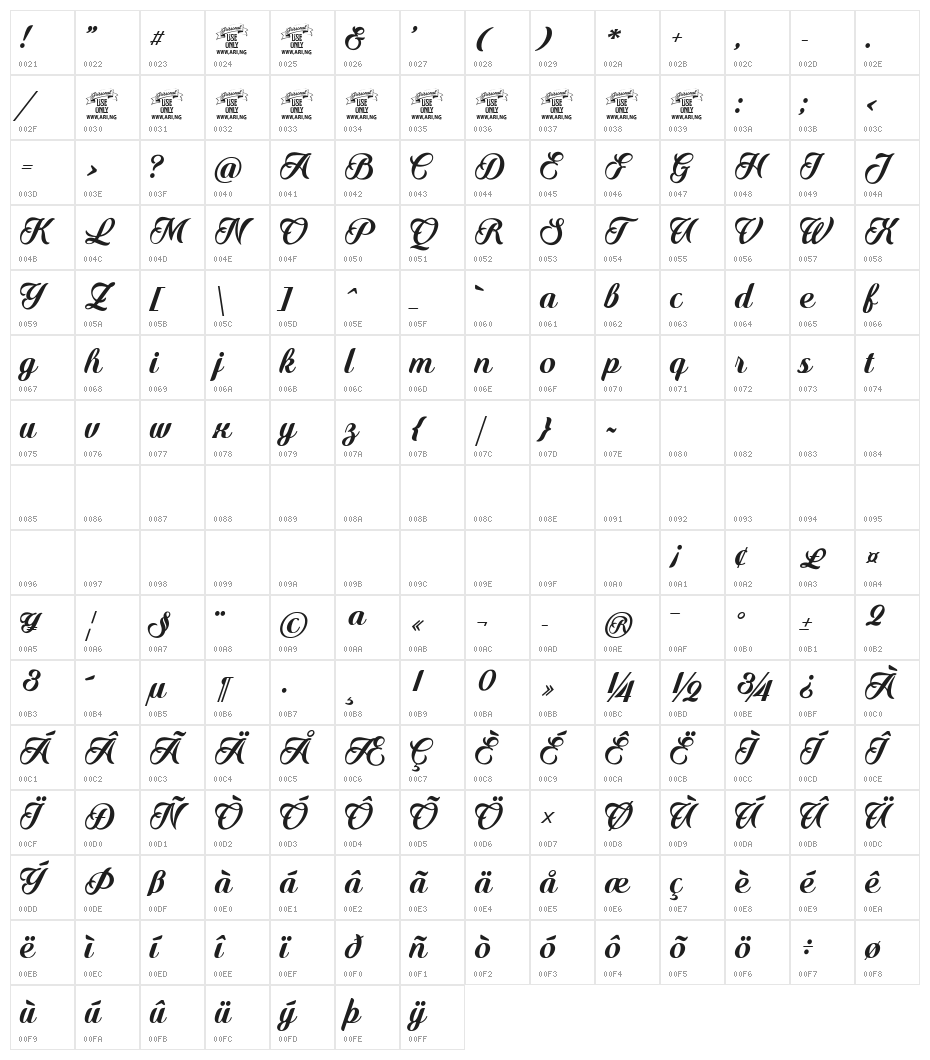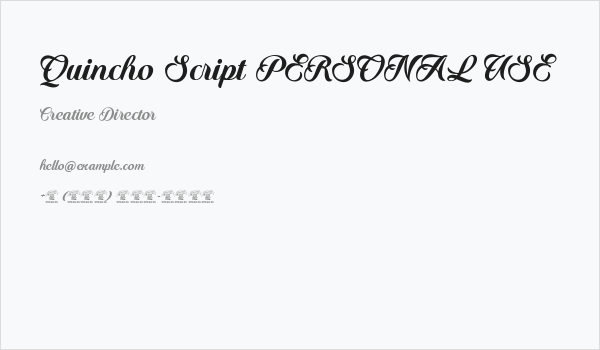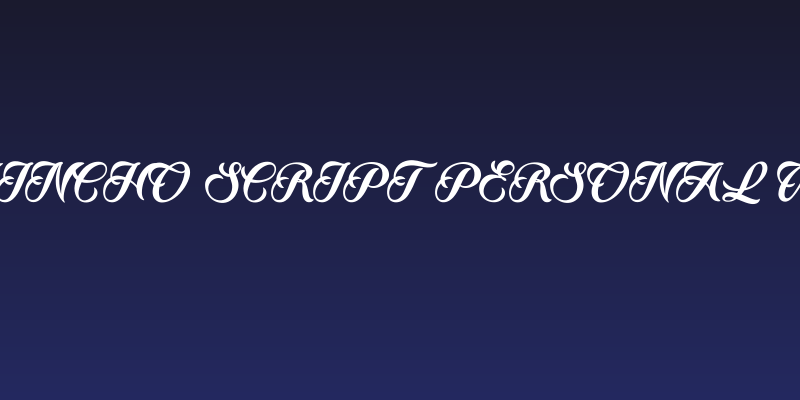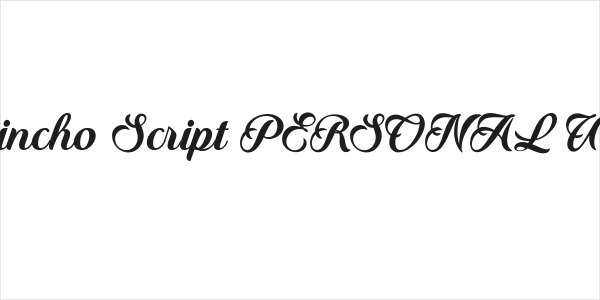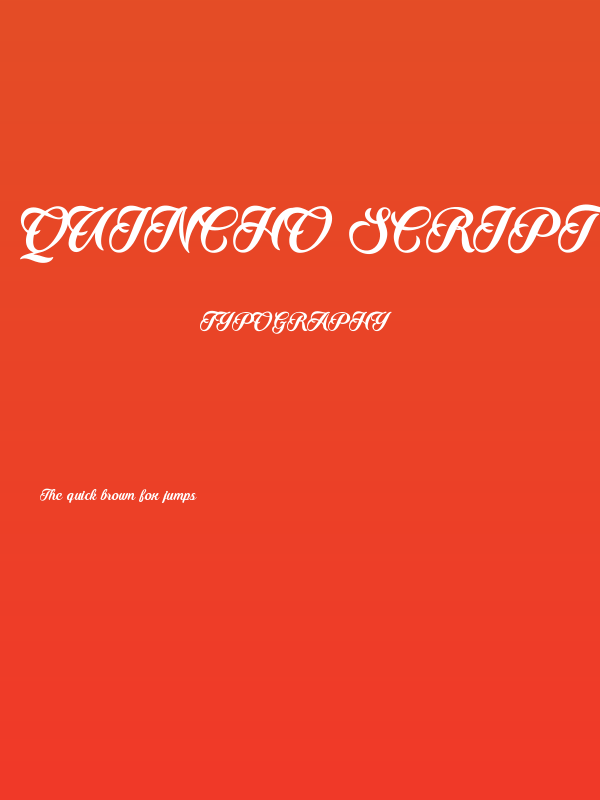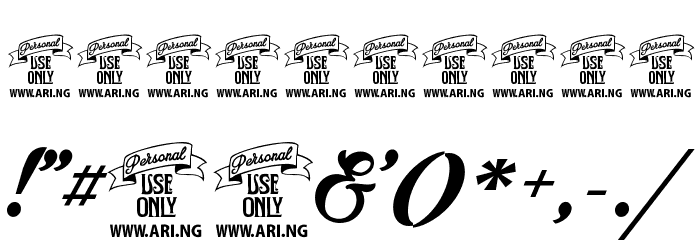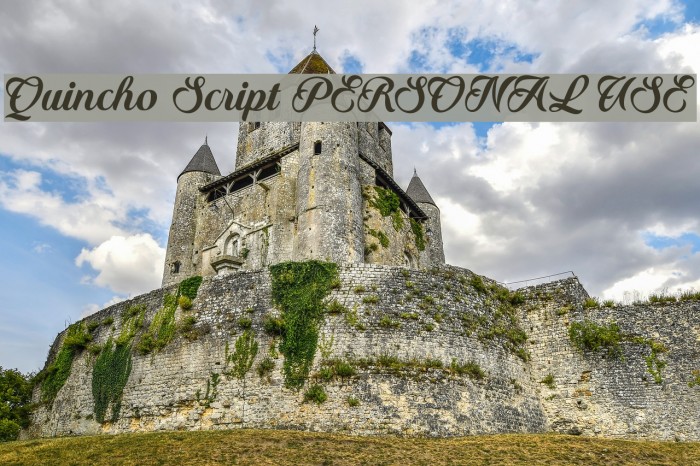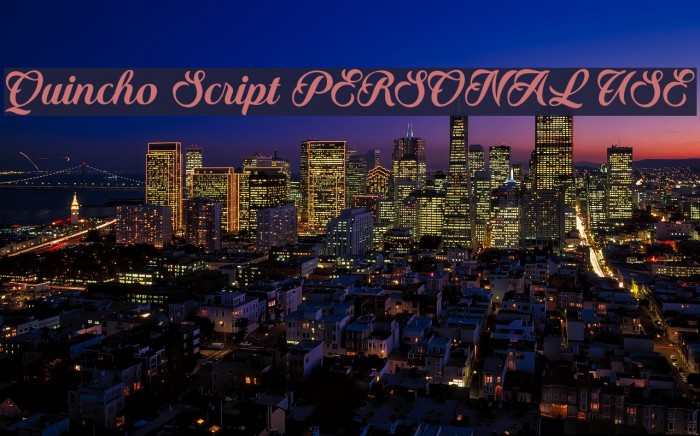
Quincho Script PERSONAL USE Font
Quincho Script PERSONAL USE Description
This font features a flowing, cursive style with elegant curves and a handwritten appearance. The uppercase letters are ornate and slightly slanted, while the lowercase letters maintain a consistent flow with smooth transitions between strokes. The overall design is reminiscent of traditional calligraphy, offering a sophisticated and artistic look. The characters are well-balanced with moderate spacing, ensuring readability while maintaining an aesthetic appeal. The font includes a full set of uppercase and lowercase letters, numbers, and a selection of special characters, making it versatile for various design needs.
| Overall Style | Classic |
| Use Case | Logos, Invitations, Decorative text |
| Proposed Projects | Ideal for wedding invitations, greeting cards, branding, and logo design. |